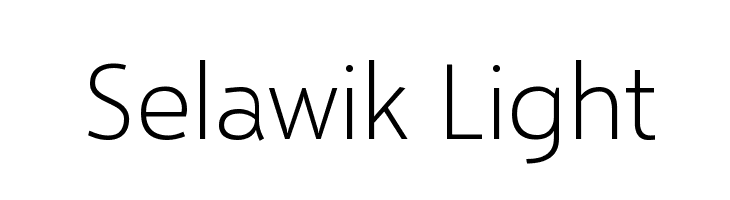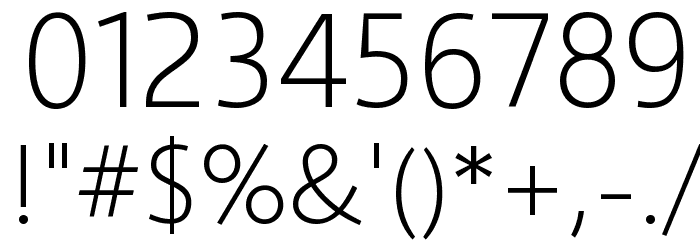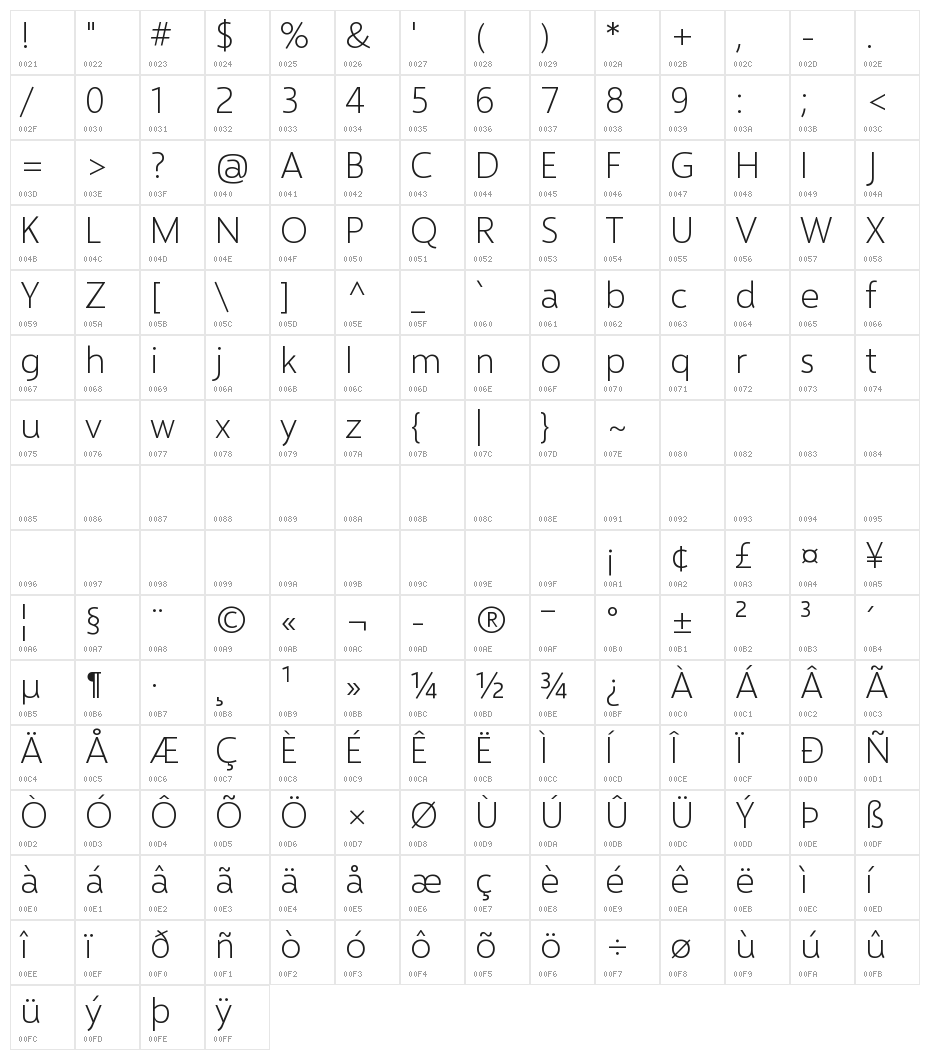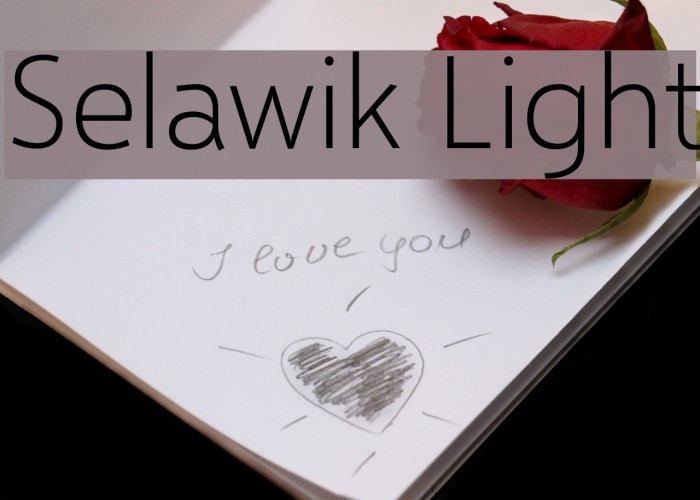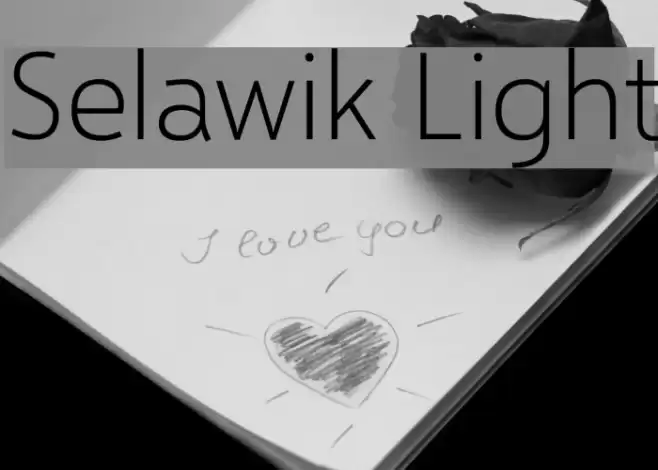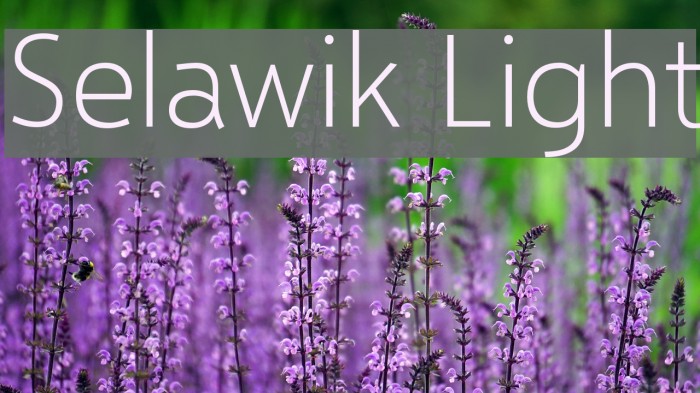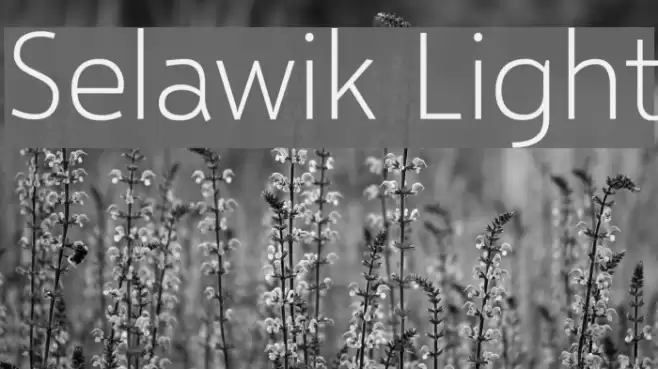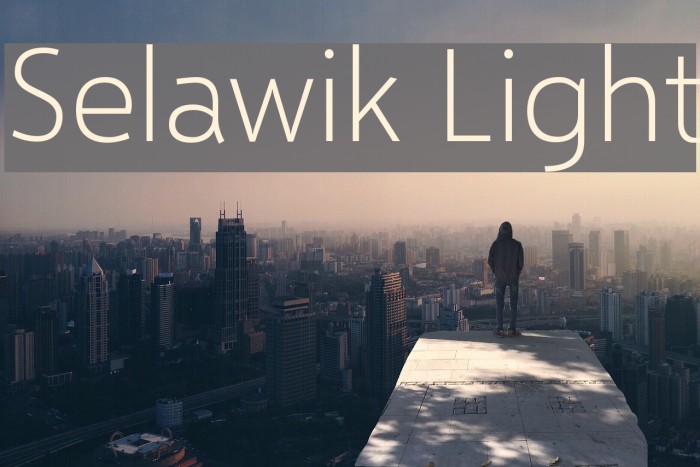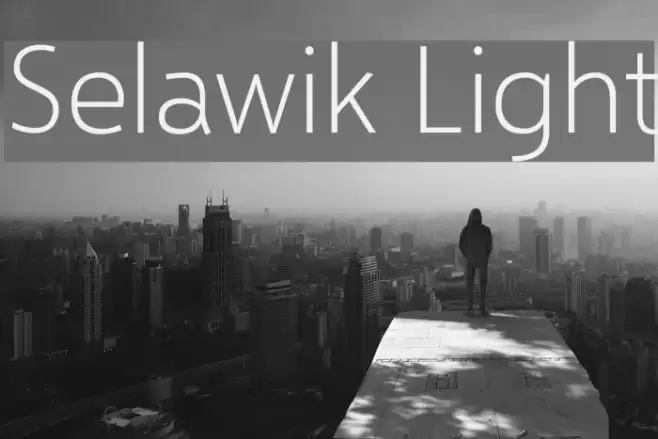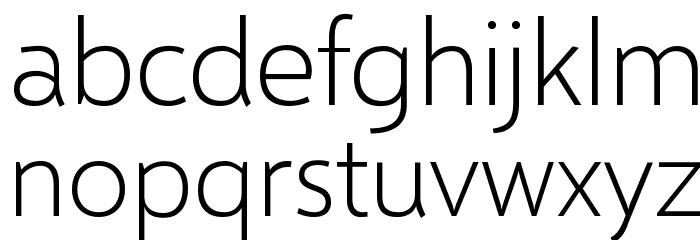
Selawik Light Font
Selawik Light Description
This font features a clean and modern sans-serif design with a light weight, making it ideal for minimalist and contemporary projects. The characters are evenly spaced with a normal width, providing excellent readability. The uppercase letters are tall and elegant, while the lowercase letters maintain a consistent and smooth flow. Numbers and special characters are designed with the same attention to detail, ensuring uniformity across all glyphs. The font's low contrast in stroke thickness contributes to its sleek and understated appearance, suitable for a wide range of applications.